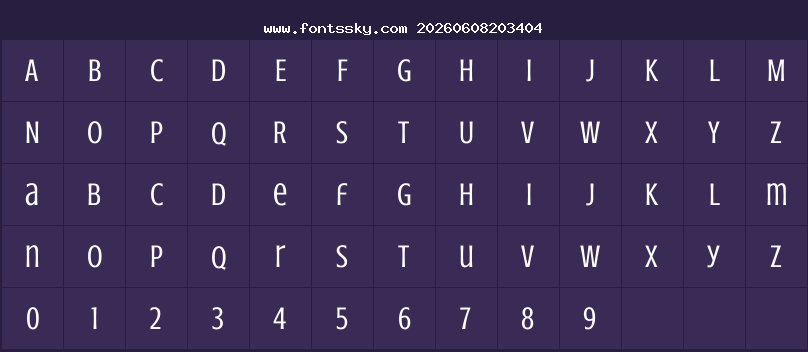
Crushed Preview
• Font Name: Crushed
• Font ID: 001.001;AOEF;Crushed-Regular
• Full Font Name: Crushed Regular
• Version: Version 001.001
• PostScript Name: Crushed-Regular
• Character Count: 367
• Designer: Astigmatic (AOETI)
• Manufacturer: Astigmatic (AOETI)
About Crushed.ttf
Crushed.ttf is a modern, elegant sans-serif font designed for ultimate readability and visual harmony. Perfect for branding, headlines, web design, and print materials.